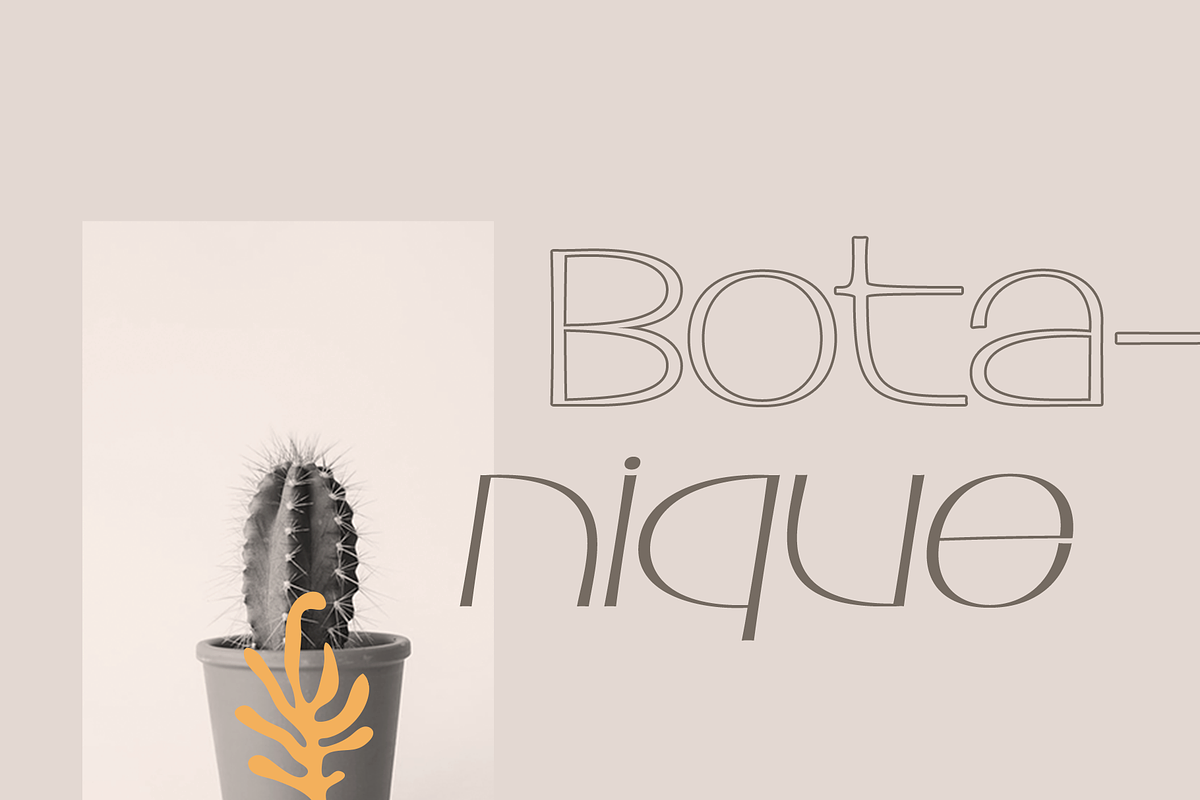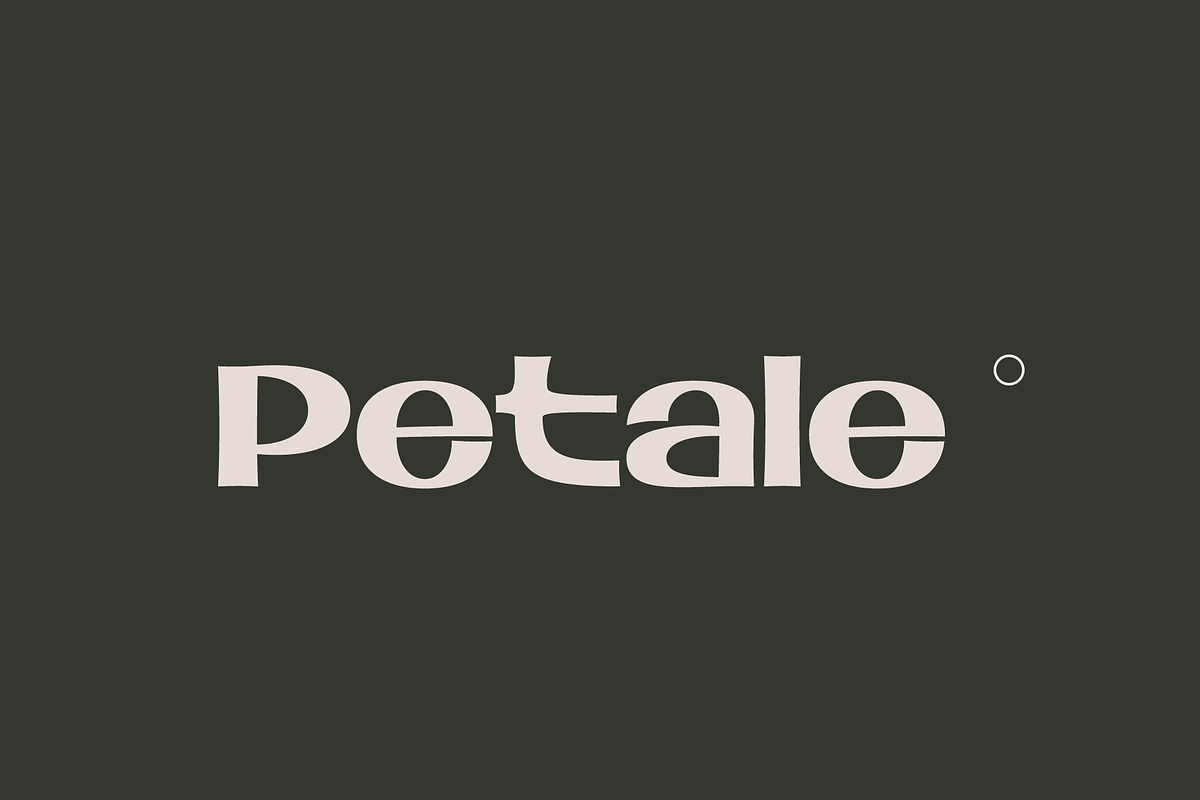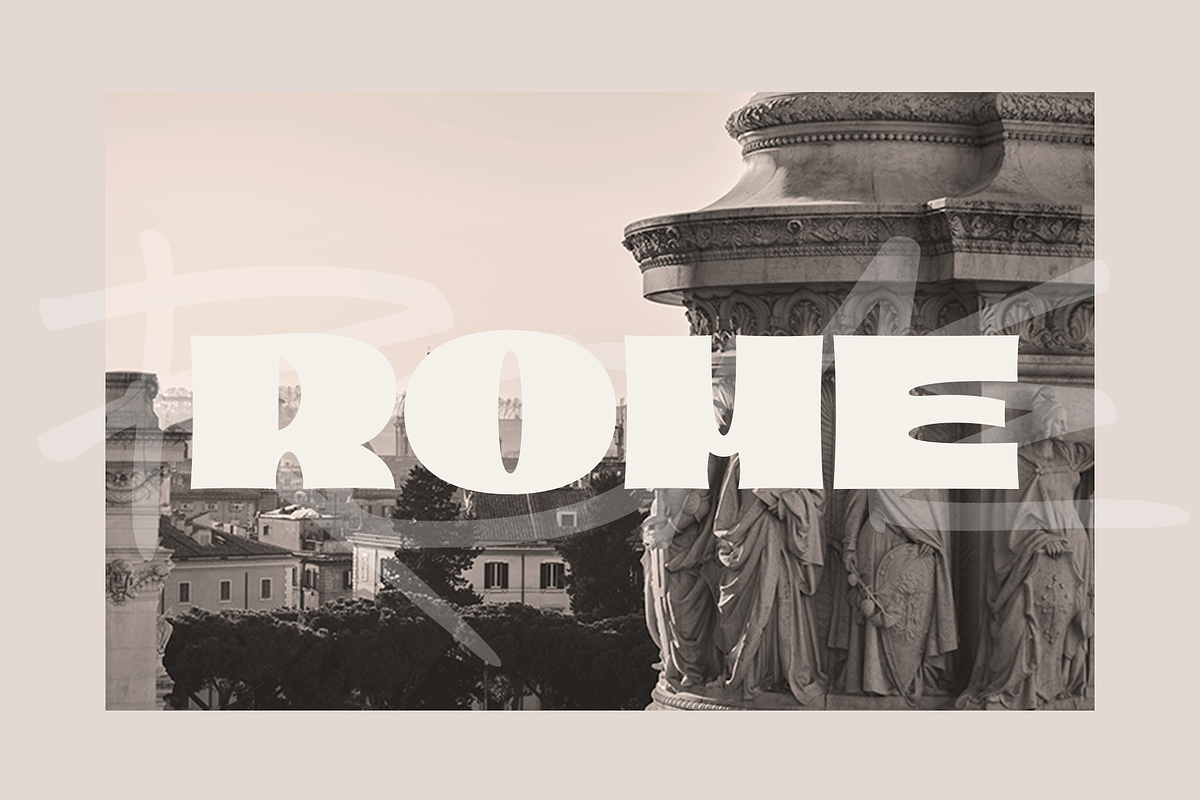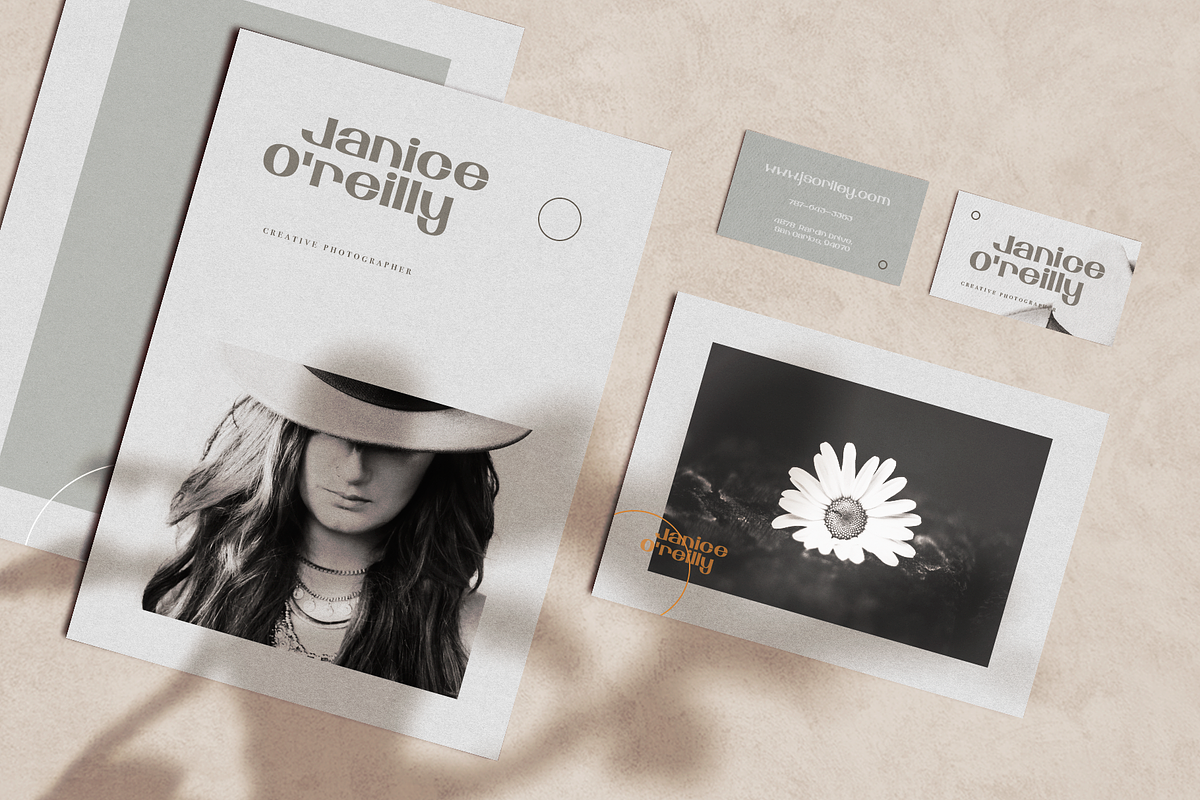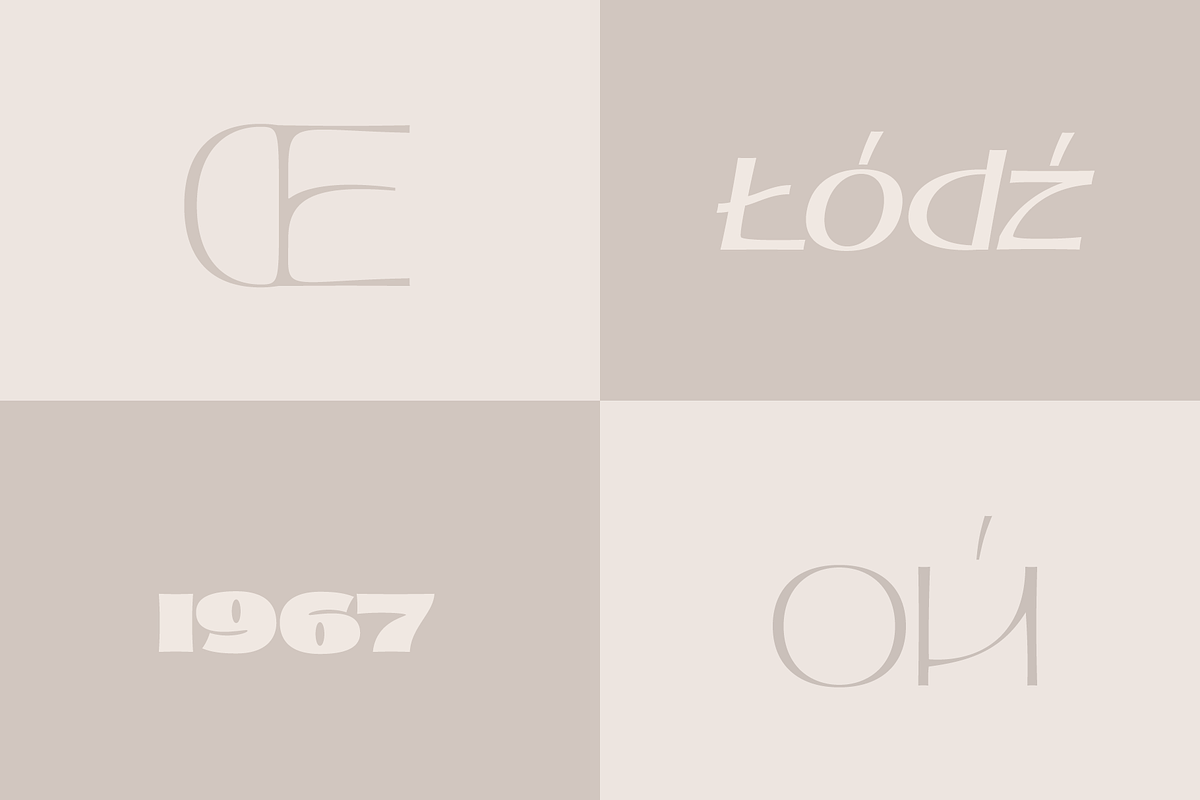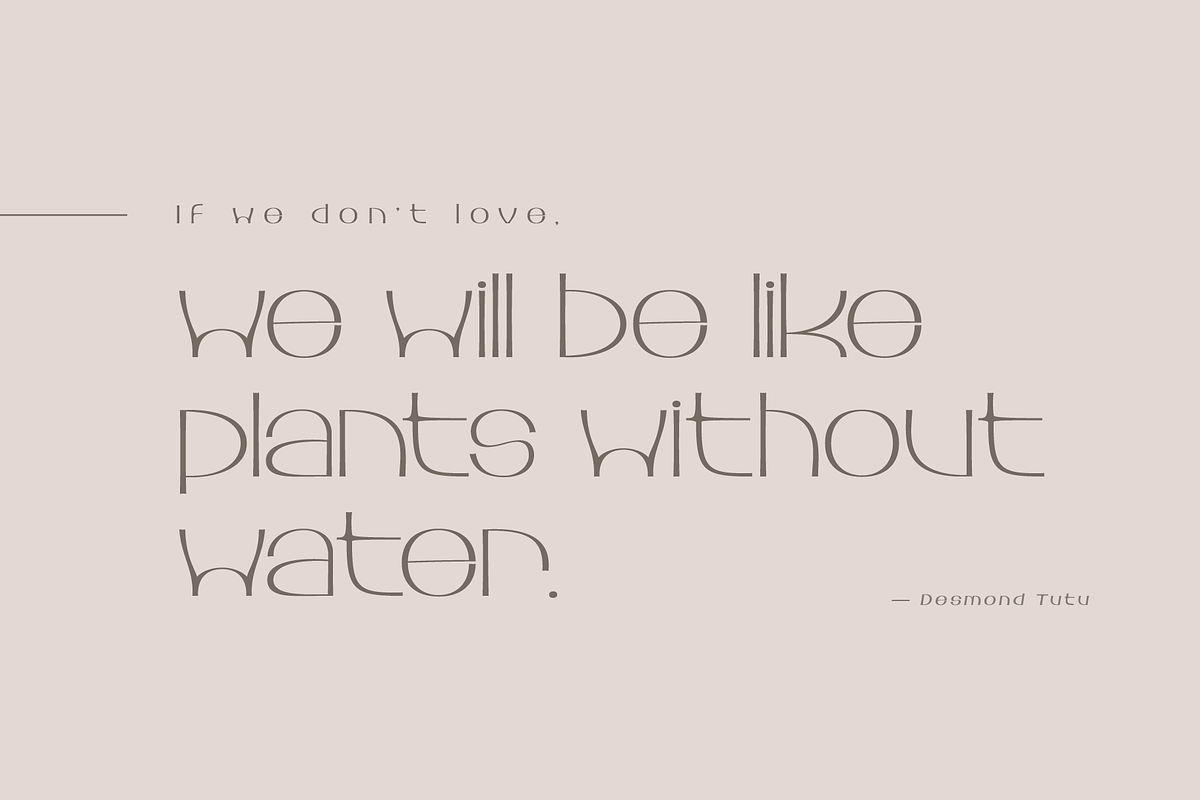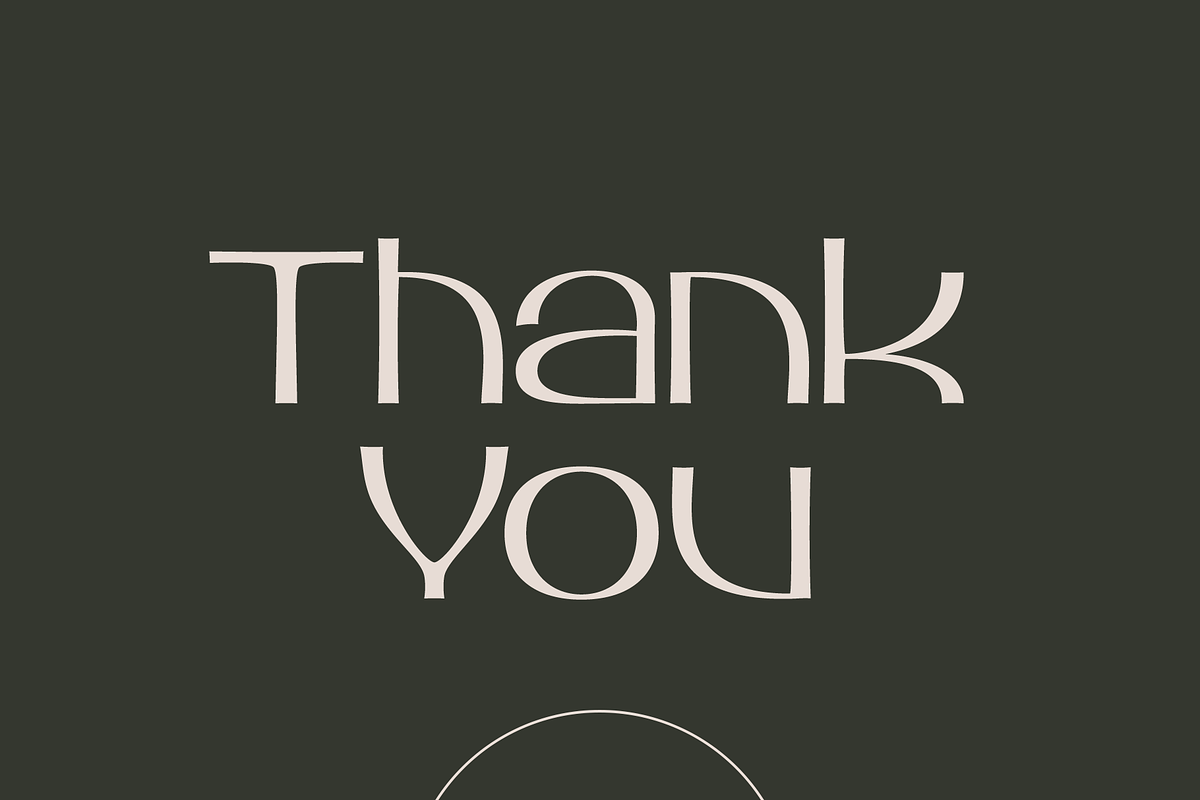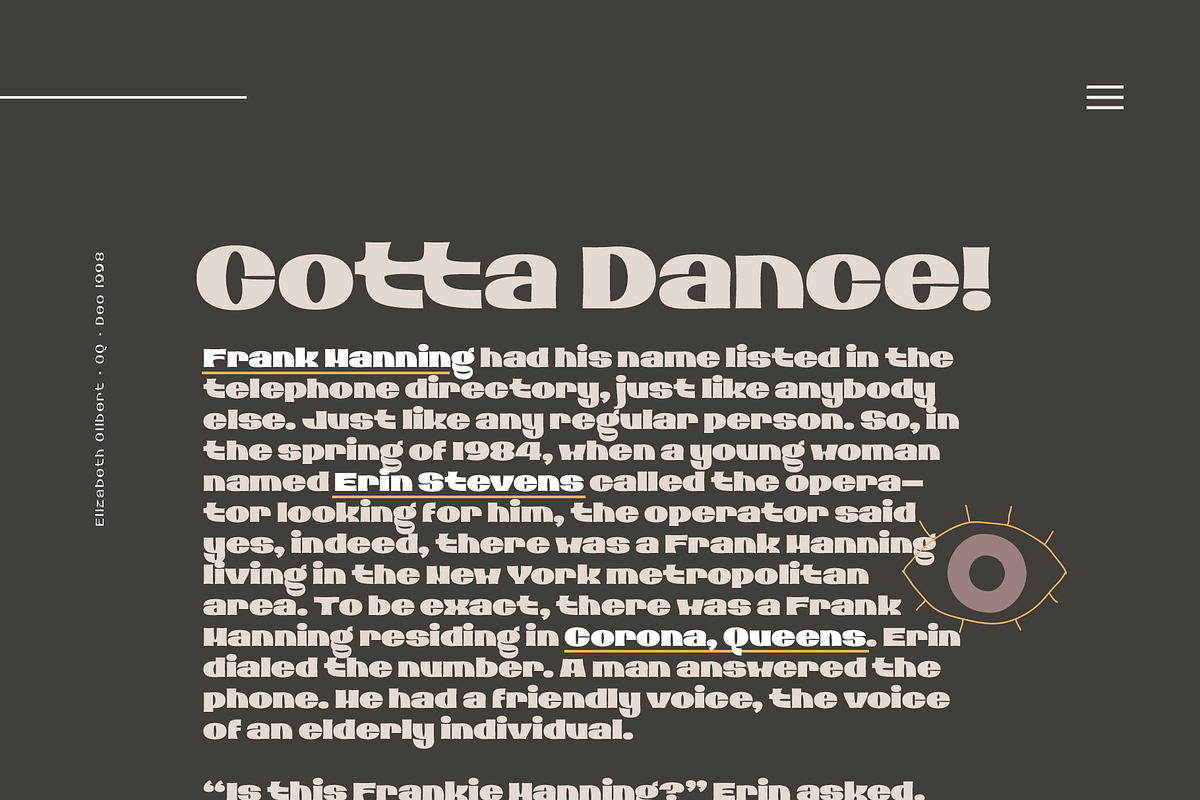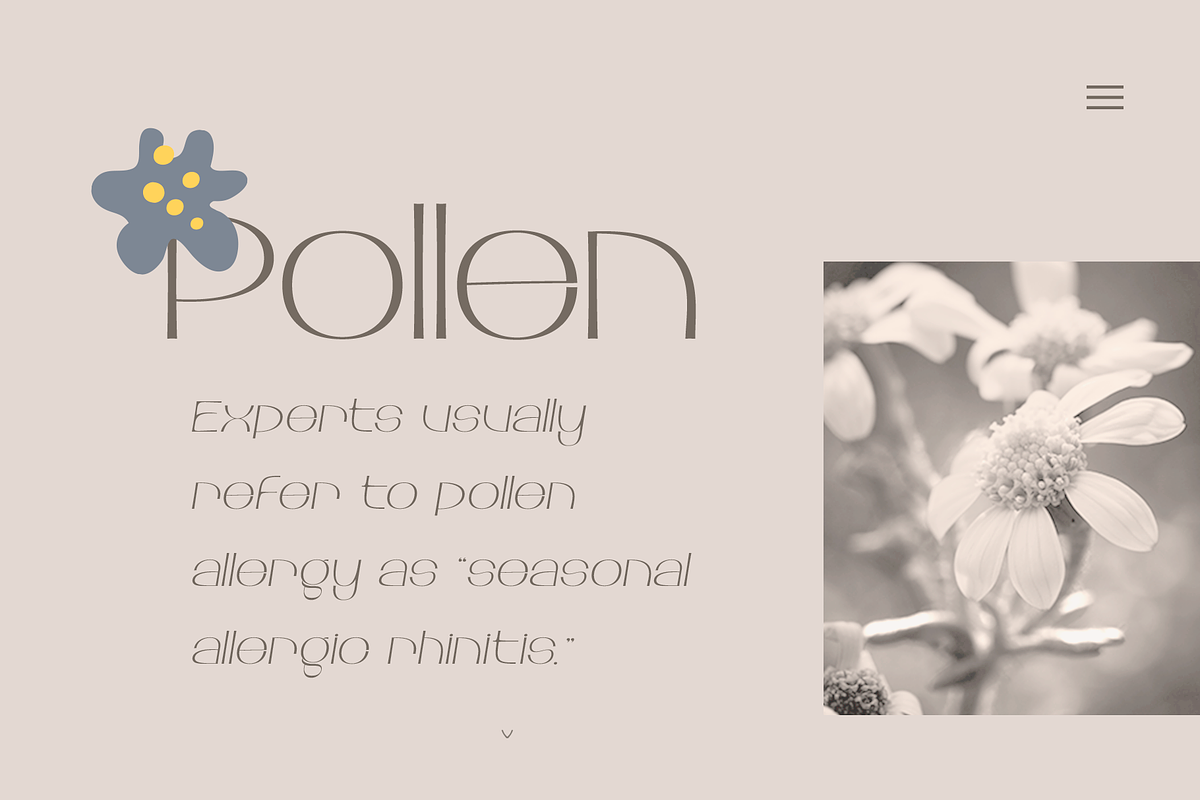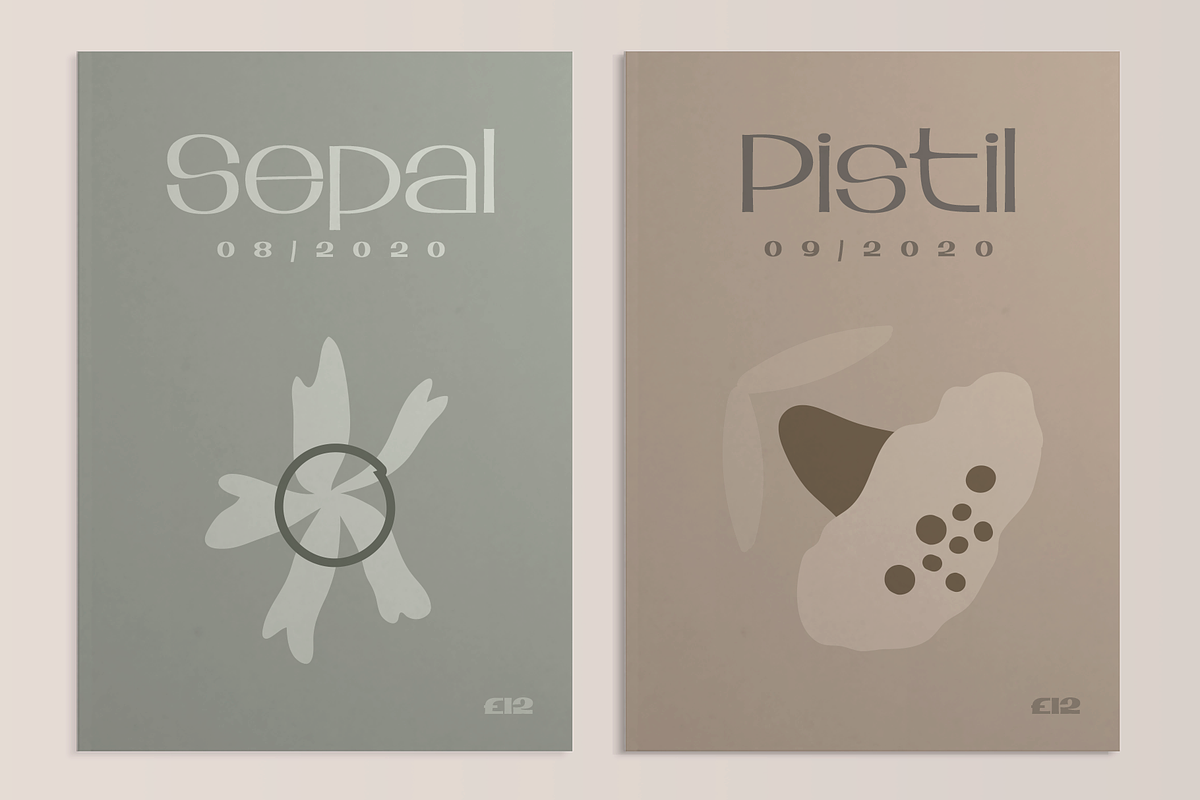
Petale
Petale is my new elegant experimental typeface I'd love to present. In the beginning, I was intended to create a bold wide font, I started sketching options and came out with the letter 'M' design first. I thought it may be interesting and had continued developing the style with letters N, O, etc., spending hours on some letters to match the design and my vision. I liked how it looked (especially digits) and added different weighs. And it came out pretty stylish.
You may like it to use in magazine designs, posters, websites, packaging, branding, logo, and so on. Petale can grant your work some graceful modern touch with a brutalist-feminine note.
Works well with elegant and strict serif fonts. Also, try to experiment with script fonts. I used my Stormy Youth font: https://www.myfonts.com/fonts/lomohiber/stormy-youth and Bodoni 72 Smallcaps